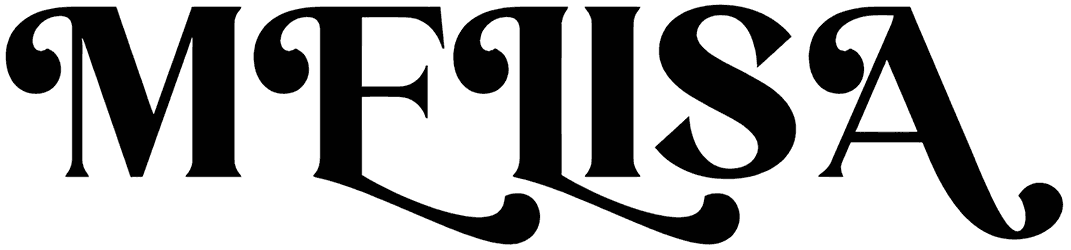
Melisa Font
To be honest, we all know that professional graphic projects such as flyers, branding, stationery, logos, or magazines need an exclusive serif font like Melisa that comes in four distinctive styles and extremely broadens your horizons. Aside from the main benefit that it has remarkable readability, this masterpiece can share a feeling of dynamism, professionalism, approachability, or confidence with customers and satisfy them.